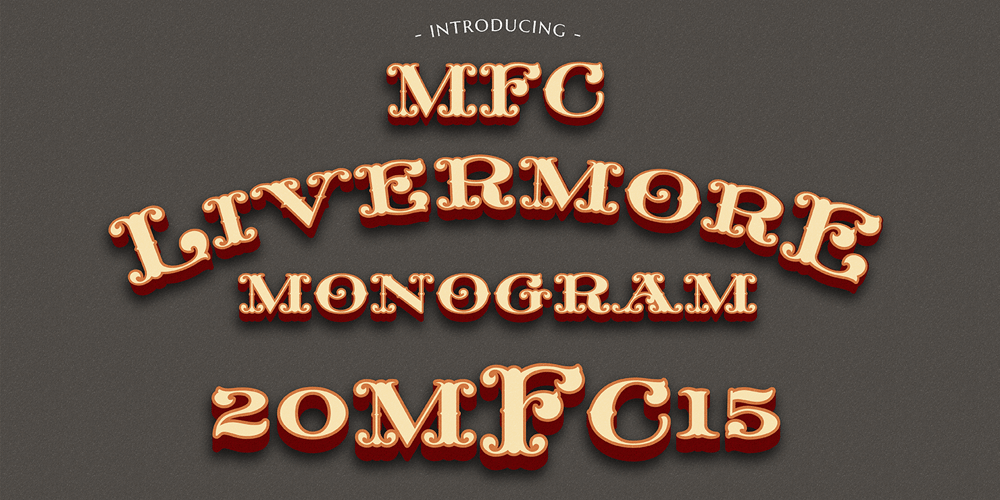
MFC Livermore Monogram
MFC Livermore Monogram font
MFC Livermore Monogram Font Family was designed by Jim Lyles, Brian J. Bonislawsky and published by Monogram Fonts Co.. MFC Livermore Monogram contains 6 styles and family package options. The source of inspiration for MFC Livermore Monogram is a wonderfully ornate lettering style recreated from the pages of Charles J. Strong’s “The Art of Show Card Writing” of 1907. We’ve expanded the original Capitals & Numbers glyphset to include smallcaps to make monograms, and have added a few unique ornamentations for basic titling typesetting. Due to its sign painter personality, we also gave it layers of dimension. Download and view the MFC Livermore Monogram Guidebook if you would like to learn a little more.